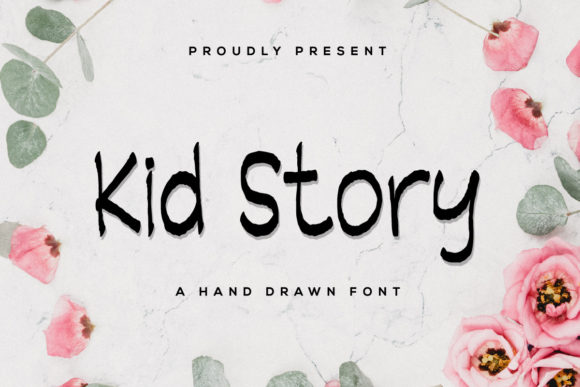
Step into a world of enchanting tales with Kid Story Font, a charming handwritten font family that will captivate your heart. Its graceful strokes and playful curves evoke a nostalgic charm, reminiscent of childhood stories that spark imagination and transport you to magical realms.
With its impeccable neatness and simplistic style, Kid Story Font transcends the boundaries of ordinariness, becoming an indispensable tool for a myriad of design projects. Its versatility knows no limits, whether you seek to create captivating logos, whimsical invitations, heartwarming greeting cards, or personalized merchandise.
Designed to be the ultimate storyteller, Kid Story Font possesses the remarkable ability to infuse your creations with a touch of enchantment. Its effortless flow and organic texture will add a personal touch to your designs, making them stand out from the crowd.
Unleash your creativity and let Kid Story Font be your muse. Its enchanting allure will transform your designs into captivating masterpieces, leaving an everlasting impact on your audience. Dive into the realm of imagination and create designs that speak to the heart with this remarkable font.